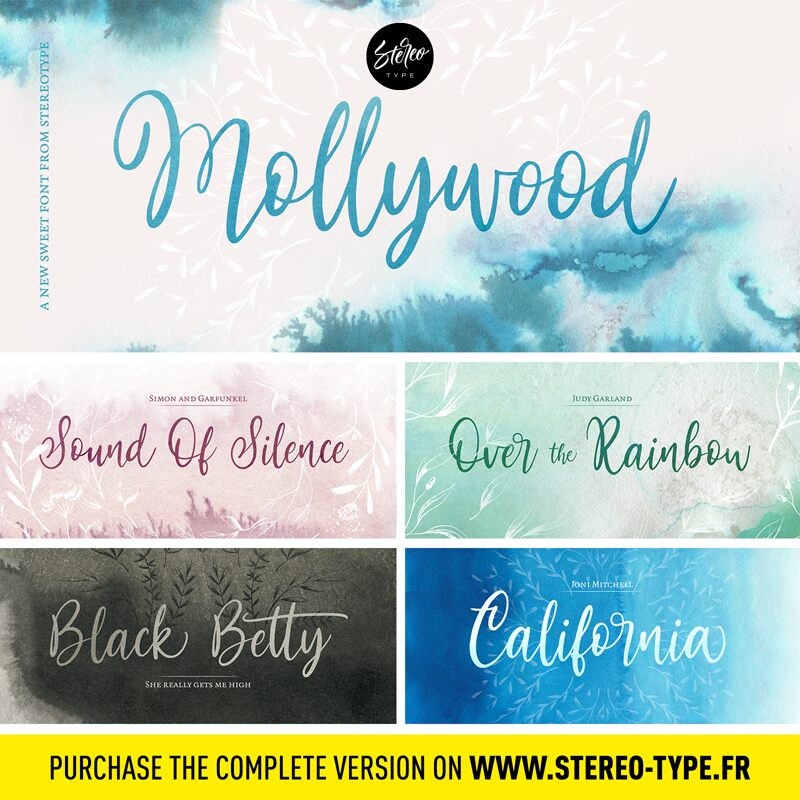
Mollywood, a handwritten font designed by Clement Nicolle of StereoType, exudes a playful and organic charm. The lively, script-like strokes capture a sense of spontaneity and energy, evoking a vibrant, youthful aesthetic. The font's unique character shines through its fluid, expressive letterforms, which seamlessly blend together, creating a harmonious and visually captivating impression.
This versatile font lends itself well to a variety of design applications, from branding and packaging to editorial layouts and social media content. Its inherent versatility allows it to effortlessly adapt to diverse creative projects, adding a touch of personality and flair to any design. Mollywood's expressive nature makes it a standout choice for projects aiming to convey a sense of warmth, creativity, and individual style.
Mollywood